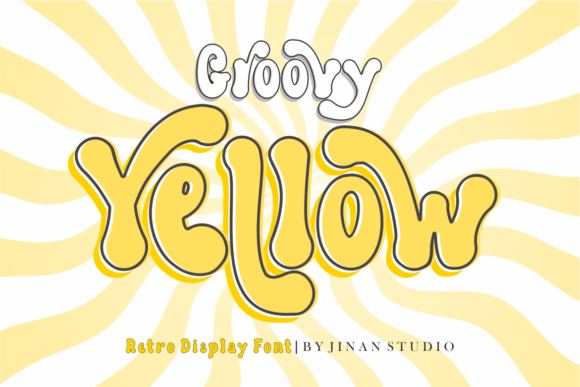
Introducing Groovy Yellow, the best font for quote tattoos created by jinanstd. This playful and retro display font is perfect for adding an extra edge to your projects. With its versatility, Groovy Yellow is suitable for a wide spectrum of applications, including greeting cards, headlines, and more!
The vibrant and captivating design of Groovy Yellow is sure to catch the eye and make your message stand out. Its unique style exudes a sense of fun and adventure, perfect for those looking to make a statement. Whether you're a designer, artist, or simply looking to elevate your creative projects, Groovy Yellow is the font for you.
With its bold and confident aesthetic, Groovy Yellow is ideal for quote tattoos. Its eye-catching design will add a touch of personality and originality to any piece of body art. Whether you're looking to express your inner creativity or make a bold statement, Groovy Yellow is the perfect font for the job.